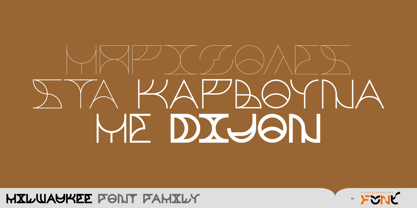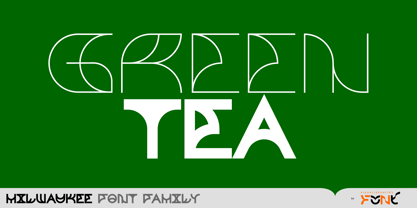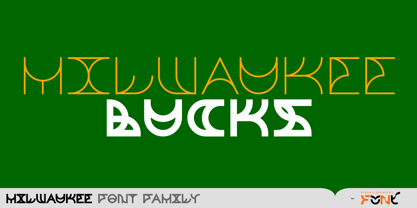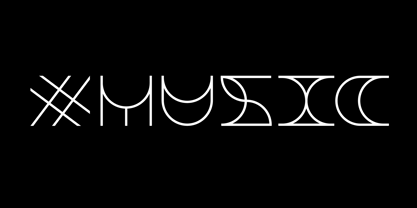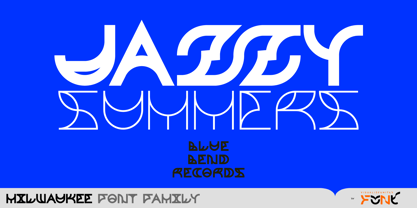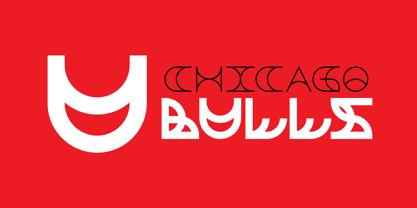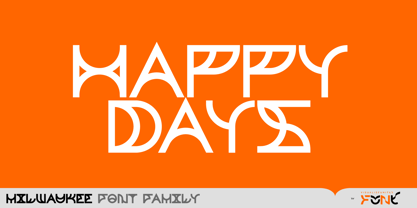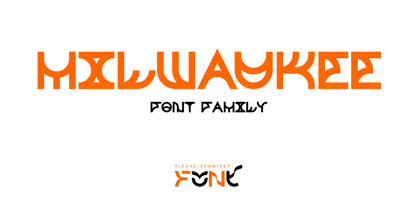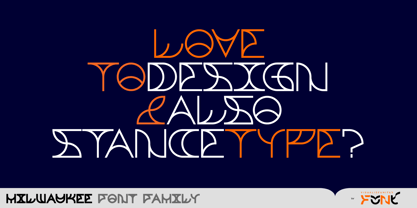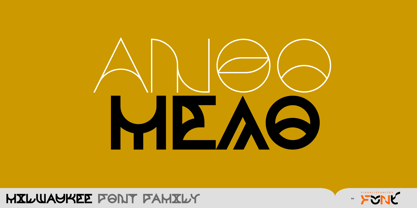
Milwaukee
The Milwaukee Font Family was designed by Tony Evreniadis and published by VisualizeUnited Fonts. Milwaukee contains 6 styles and family package options. More about this family
Milwaukee, is a geometric typeface with an embellished-like touch. Designed in 2011, it consists of uppercase Latin & Extended Latin, Greek & Central European characters. It was initially inspired by Byzantine and Japanese typography and later from the cityscape of Milwaukee, thus its name. This typeface comes in six weights and is suggested for logos, short titles, social media marketing, book covers, posters, labels and other applications you will choose to go with.